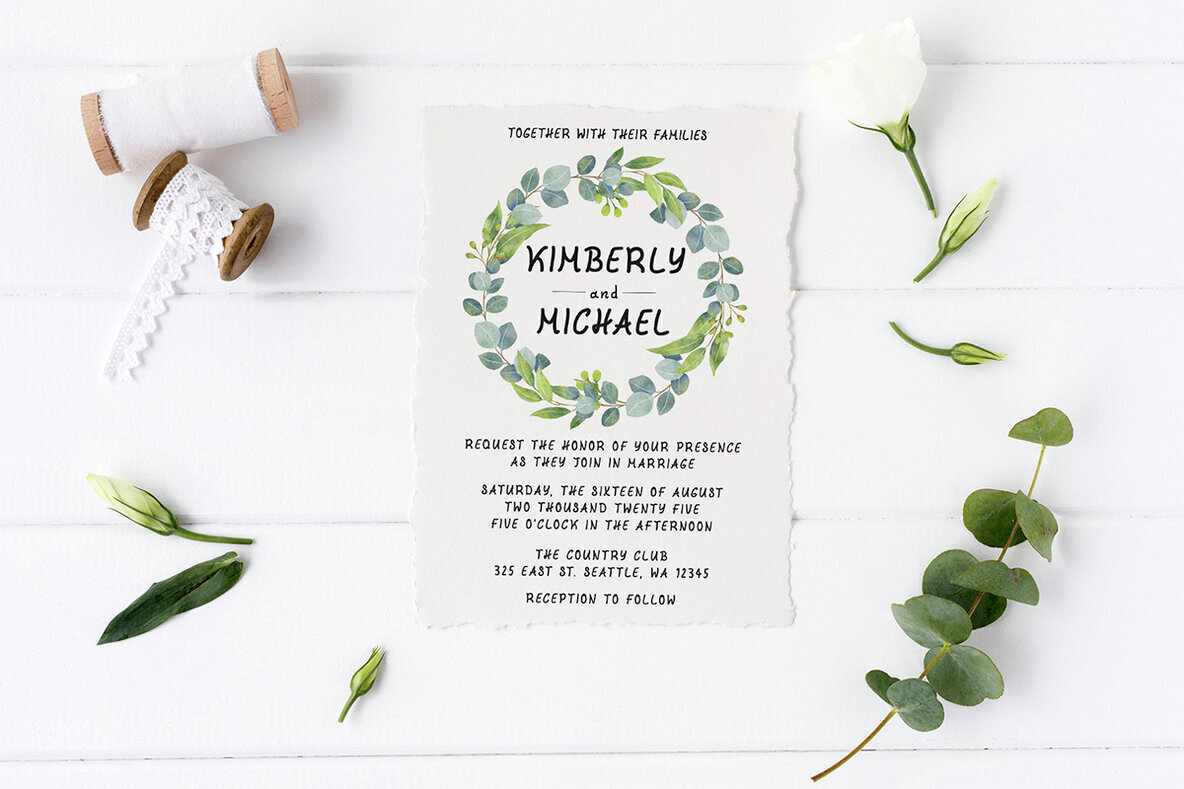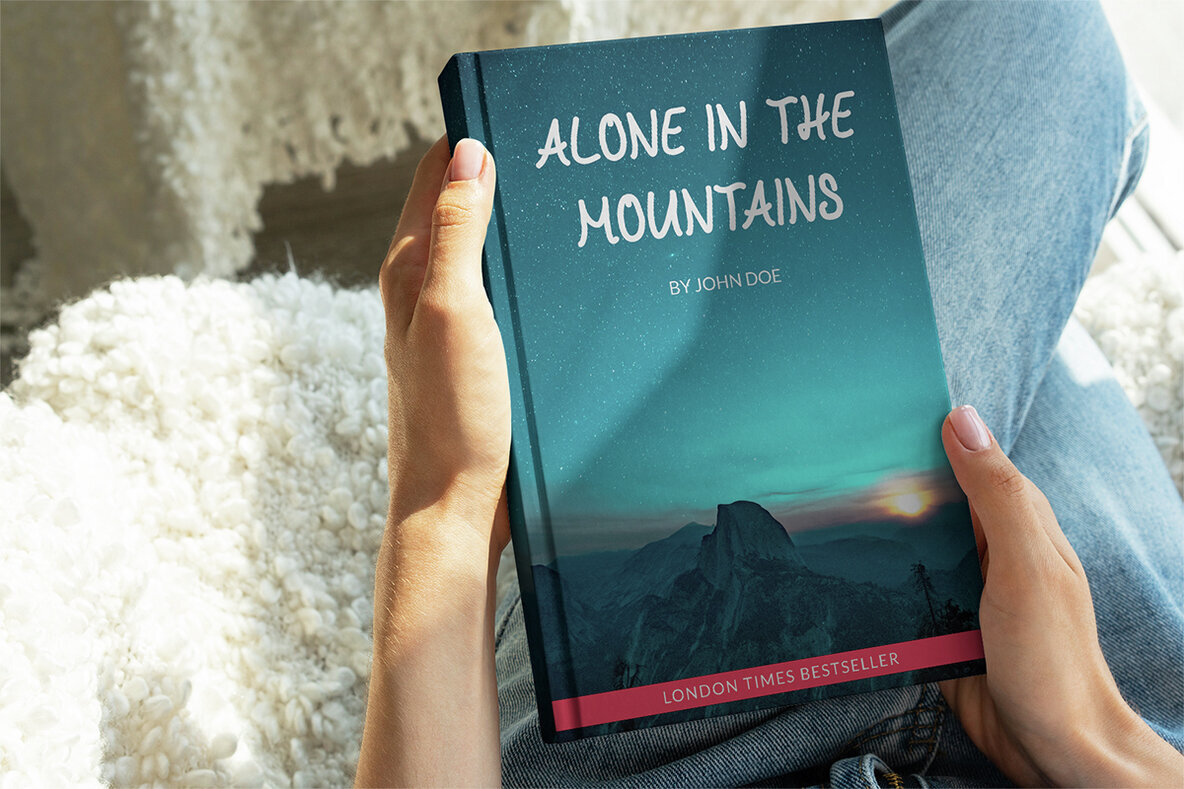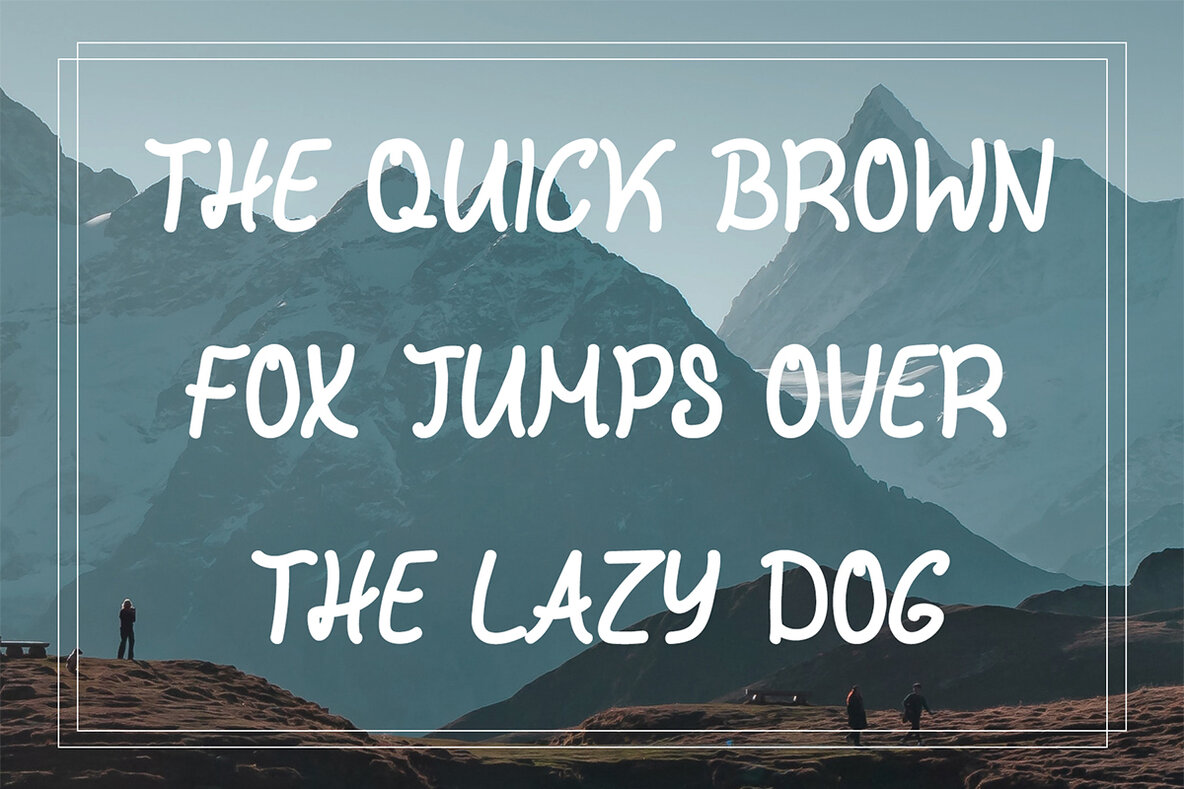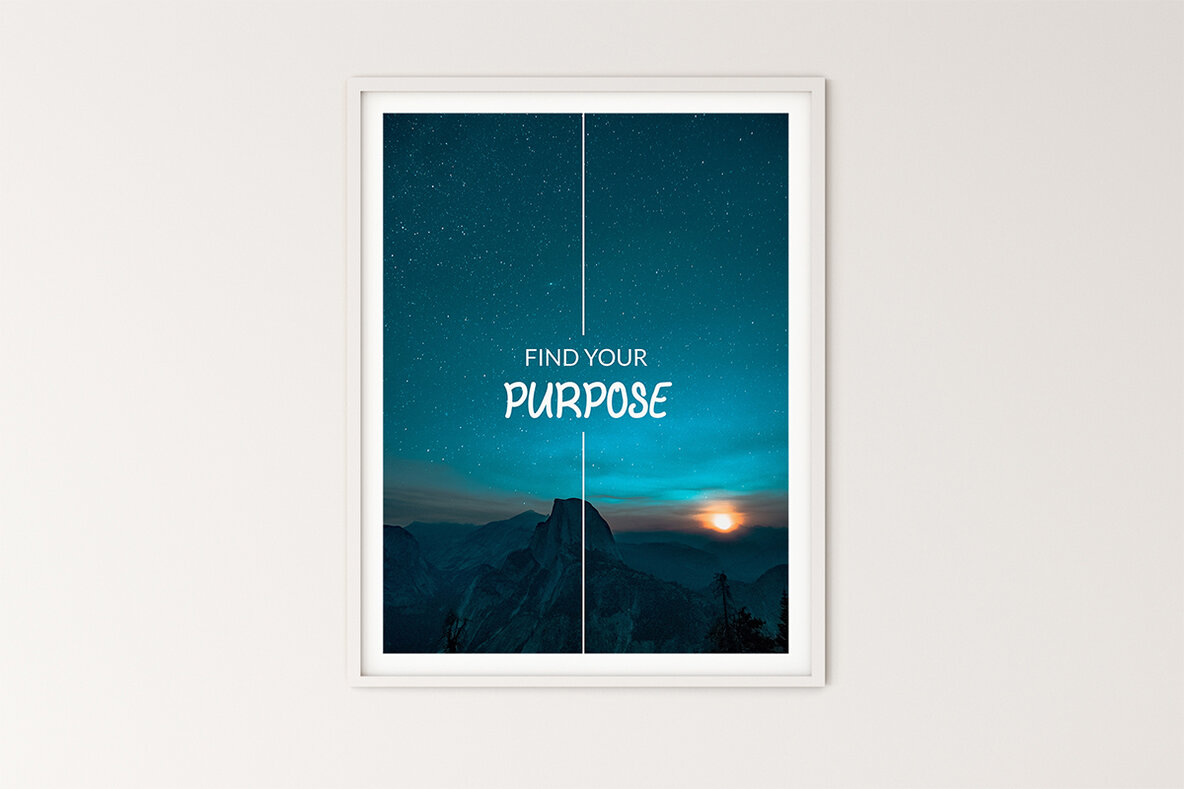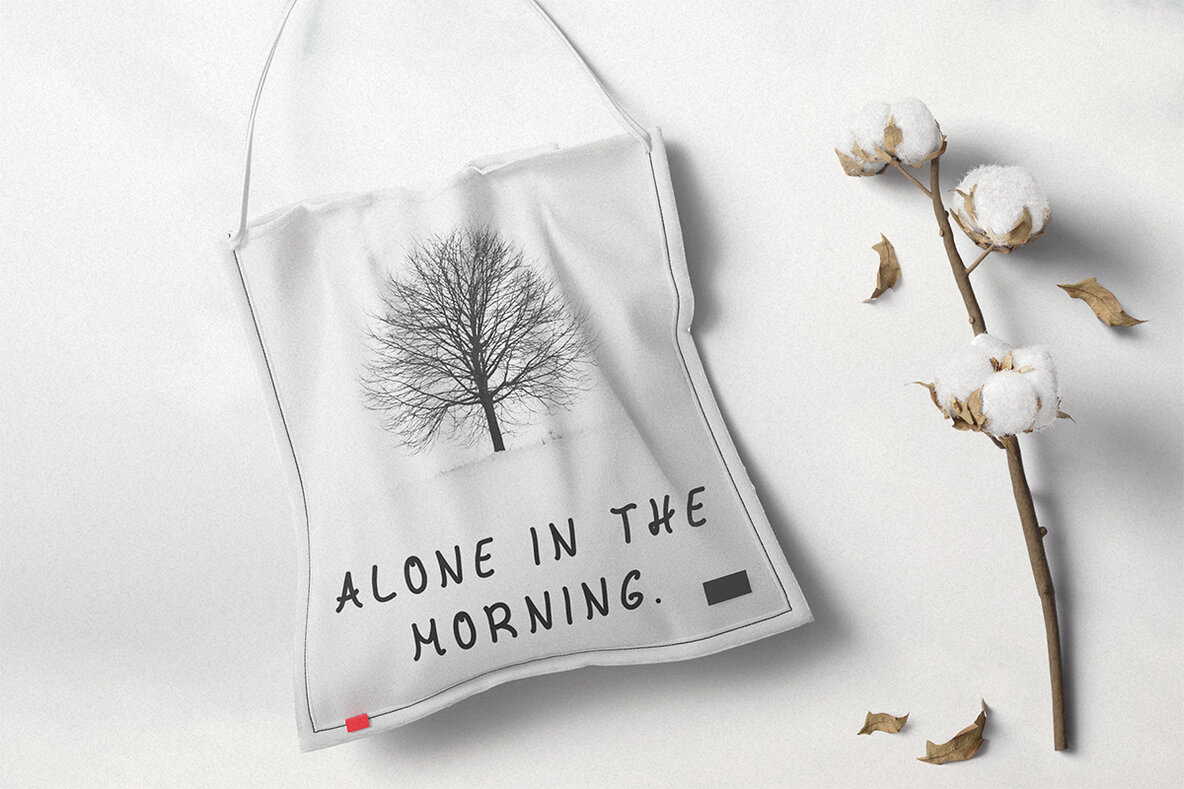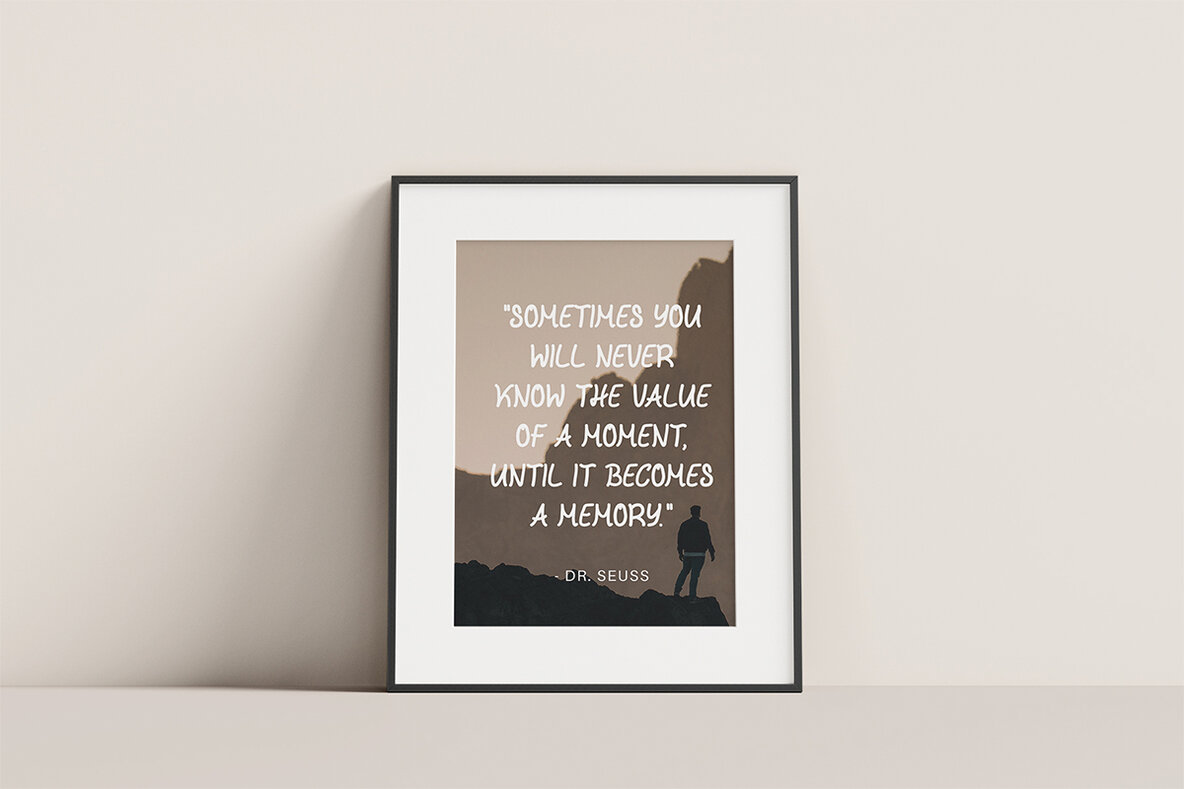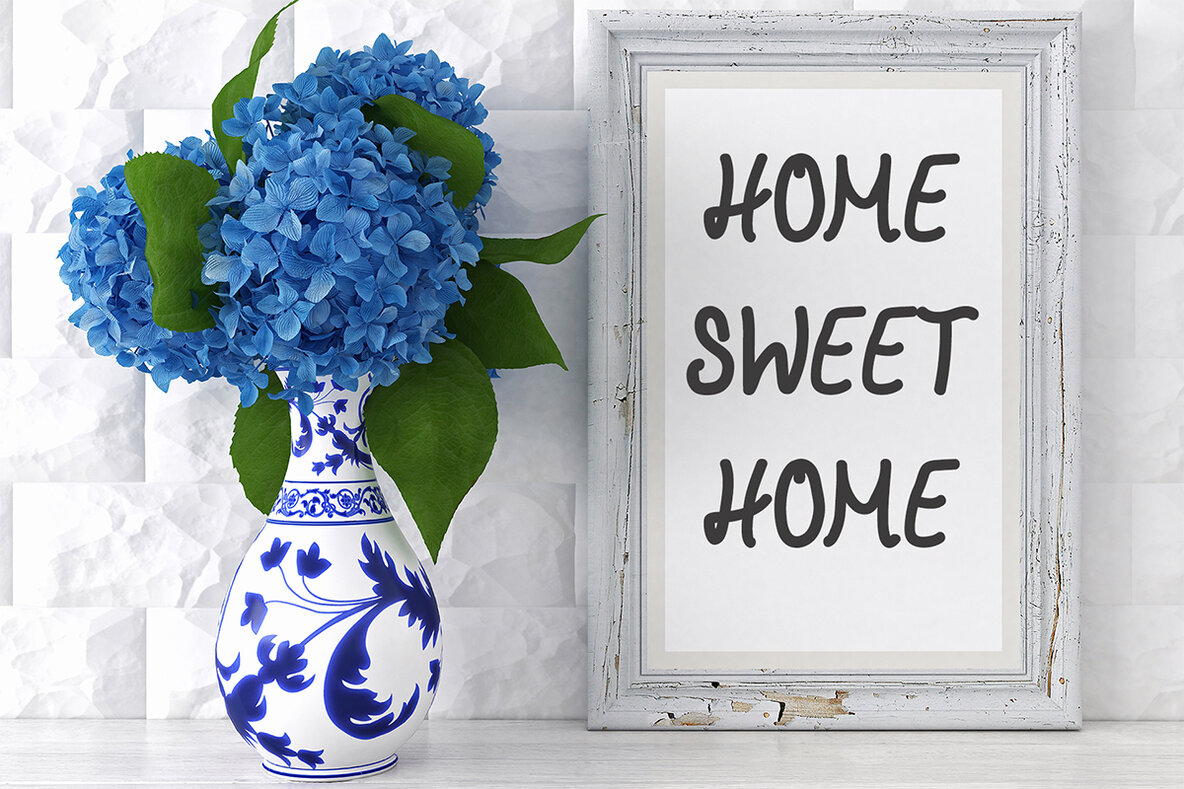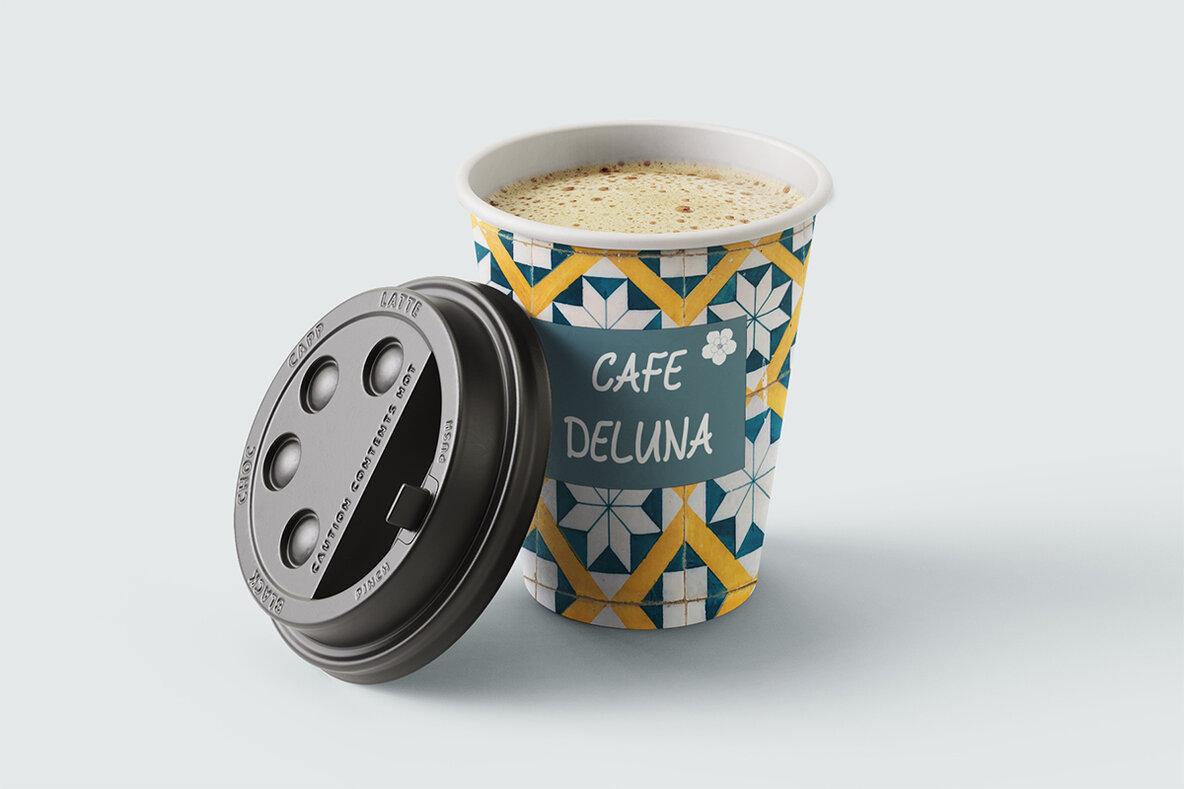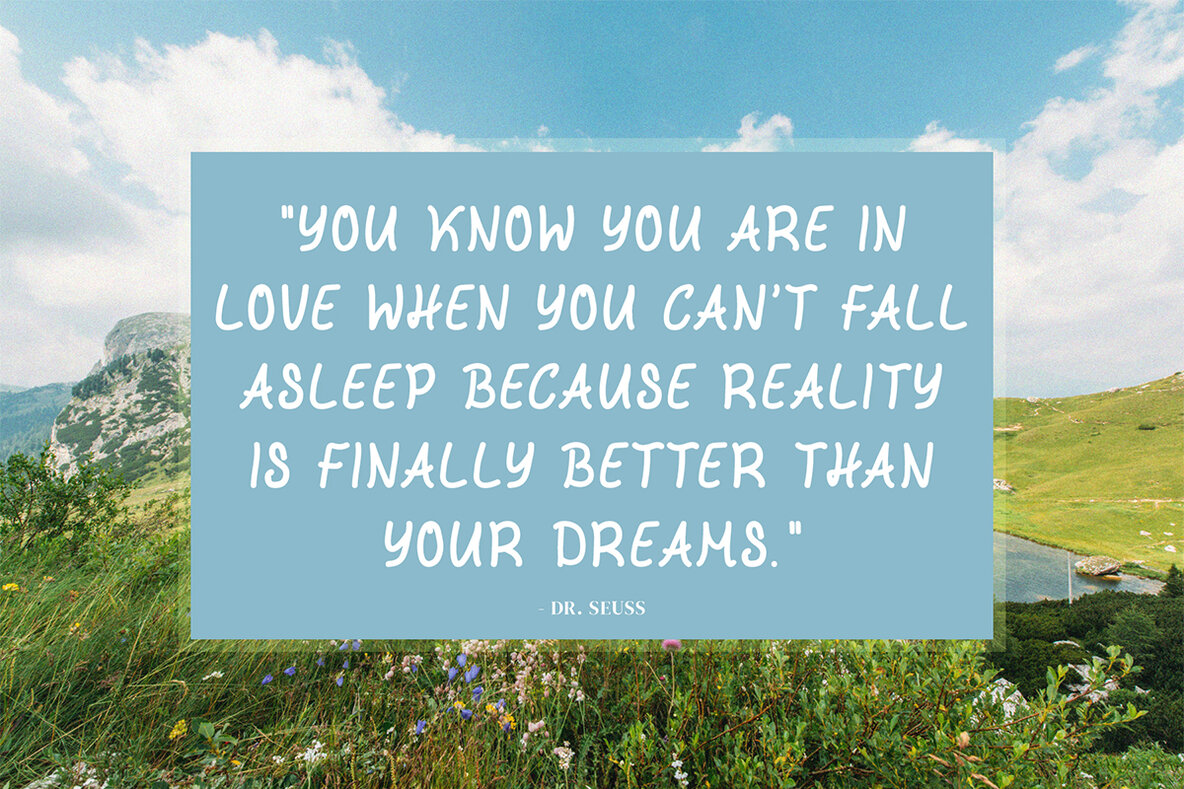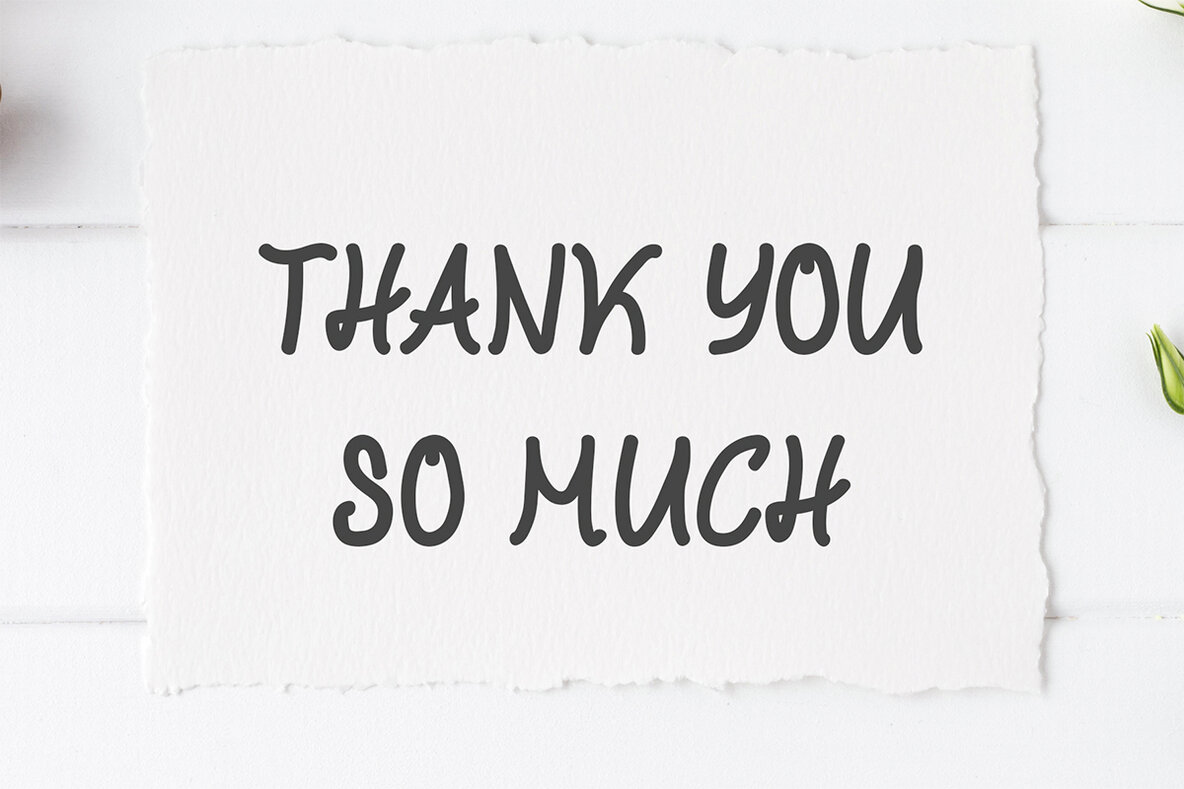
Abinaya Font
Abinaya Regular
Abinaya Handmade Font brings a sweet, quirky, and casual vibe to your designs. Perfect for projects that need a relaxed touch, this handwritten font includes uppercase and lowercase letters, numbers, punctuation, and symbols. The versatility of Abinaya makes it suitable for packaging, presentations, logos, headlines, lettering, posters, branding, quotes, magazine titles, headings, web layouts, advertising, invitations, packaging design, and books.
Abinaya features a full set of uppercase and lowercase letters along with an extensive range of numbers and punctuation marks. This flexibility allows you to apply it across a wide array of creative tasks, ensuring your designs stand out with a unique, handmade appeal. Whether you're working on corporate branding or casual invitation designs, Abinaya adds the perfect touch.